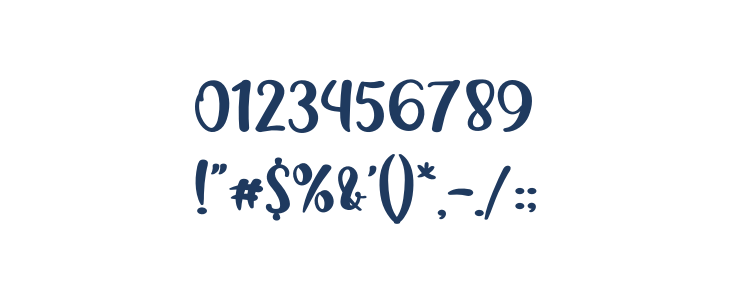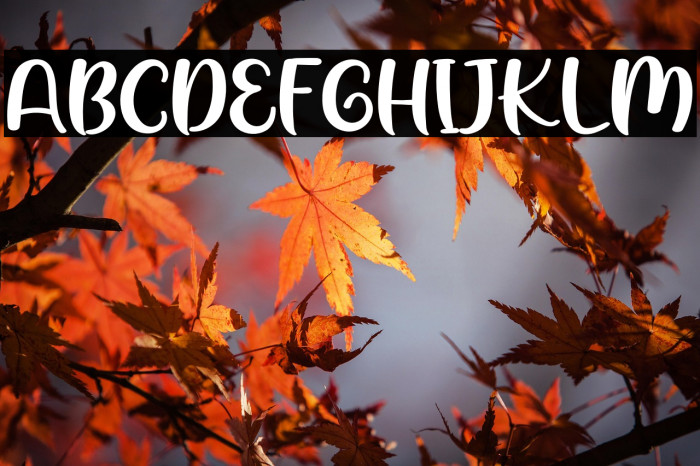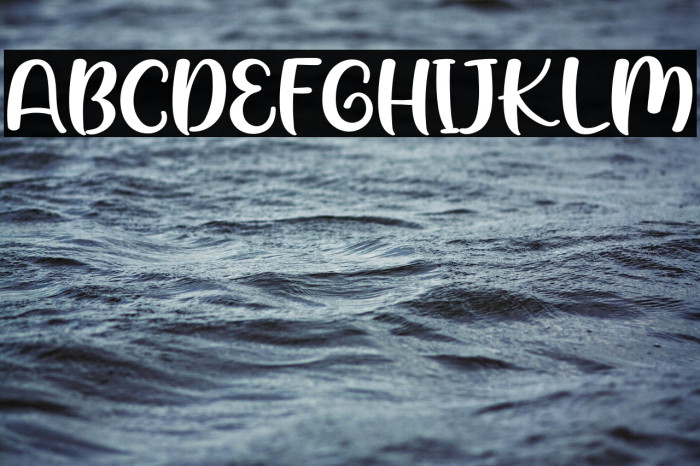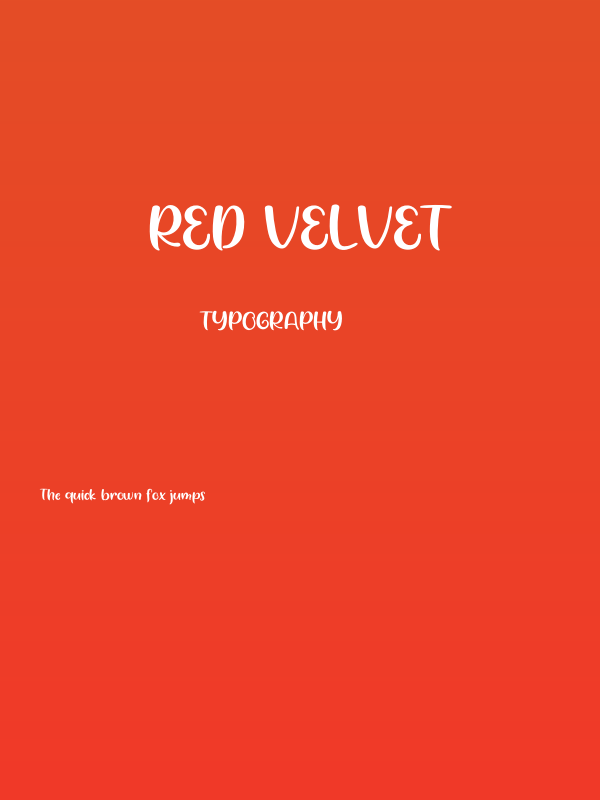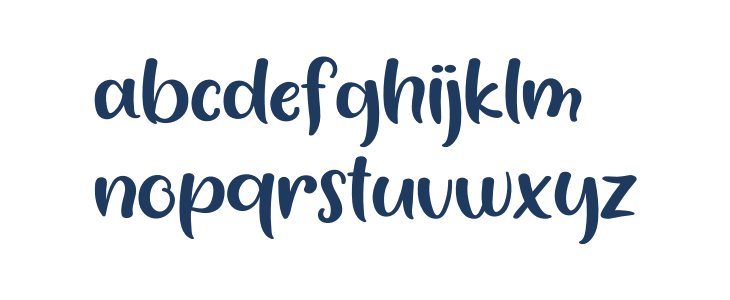
Red Velvet Font
Red Velvet Description
This font features a playful and energetic style with a handwritten feel. The characters are bold and rounded, giving them a friendly and approachable appearance. The uppercase letters have a consistent height, while the lowercase letters exhibit a slight variation in size, adding to the casual aesthetic. The numbers are well-proportioned and maintain the same playful style as the letters. Special characters are included, maintaining the overall cohesive look. The strokes are smooth and fluid, with a medium contrast that enhances readability while preserving the font's lively character.
| Proposed Projects | Ideal for children's books, playful branding, greeting cards, and social media graphics. |